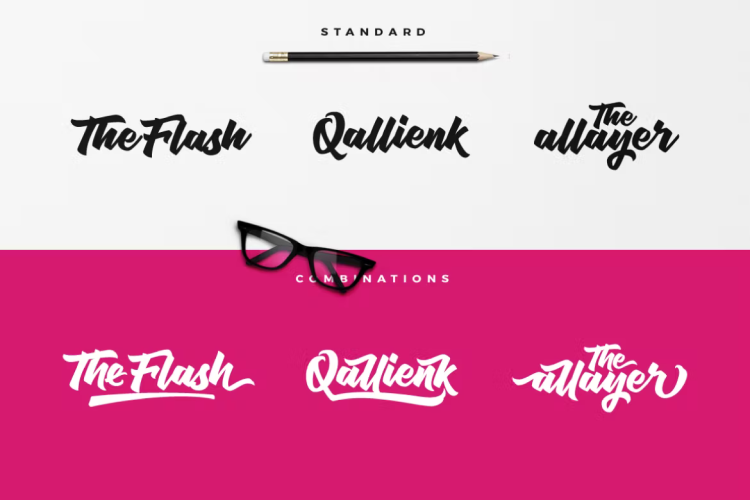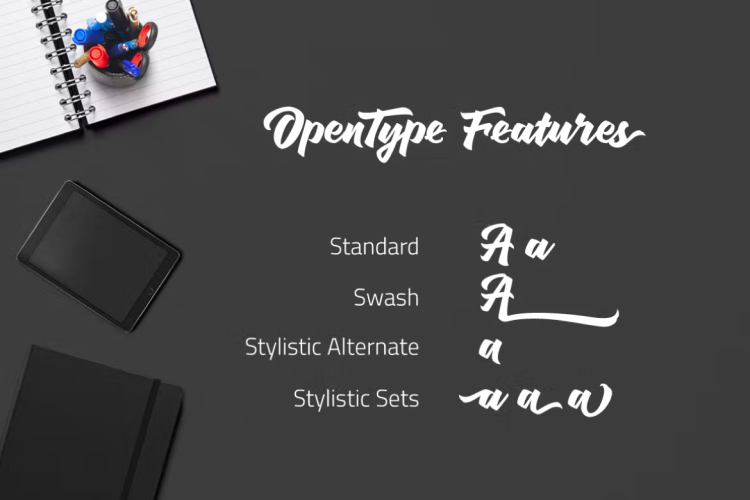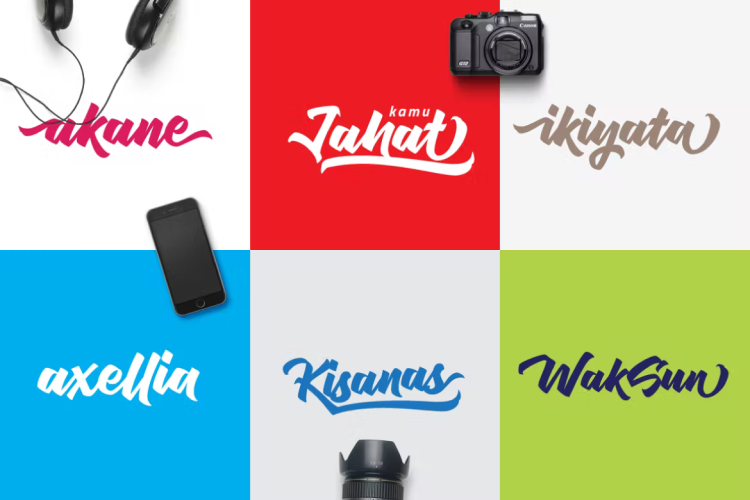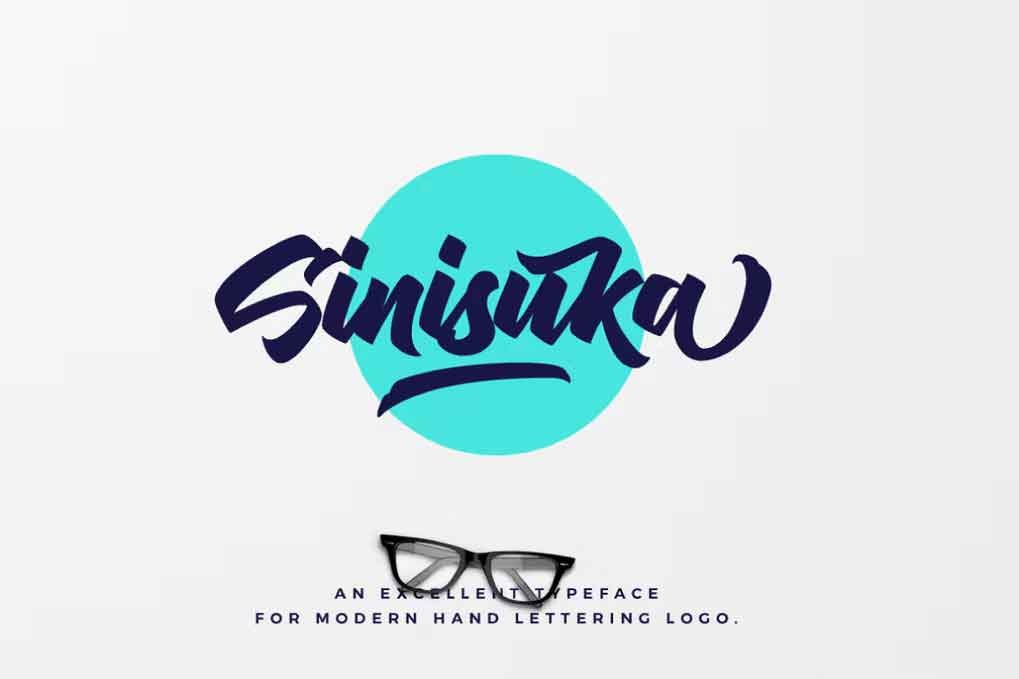
Sinisuka Font
Sinisuka an excellent typeface for modern hand lettering logo designs. And suitable for any design needs, branding, modern advertising design, Art Quote, Book/Cover Title, special events, custom mug, pillow, t-shirts, any brush lettering needs and more.
Where Sinisuka Font works best
Sinisuka Font brings a personal, handwritten warmth to invitations, menus and place cards.
Craft brands — coffee, cosmetics, bakery — use scripts like Sinisuka Font for signature-style logos and labels.
Pair Sinisuka Font with a plain sans for quotes, stories and Pinterest pins that feel handmade.
What is Sinisuka Font good for?
Sinisuka Font is a Script And Handwritten typeface tagged Branding, Brush, Modern, Script. It works well for headlines, logos, posters, social media graphics and branding projects that need a distinctive script and handwritten look.